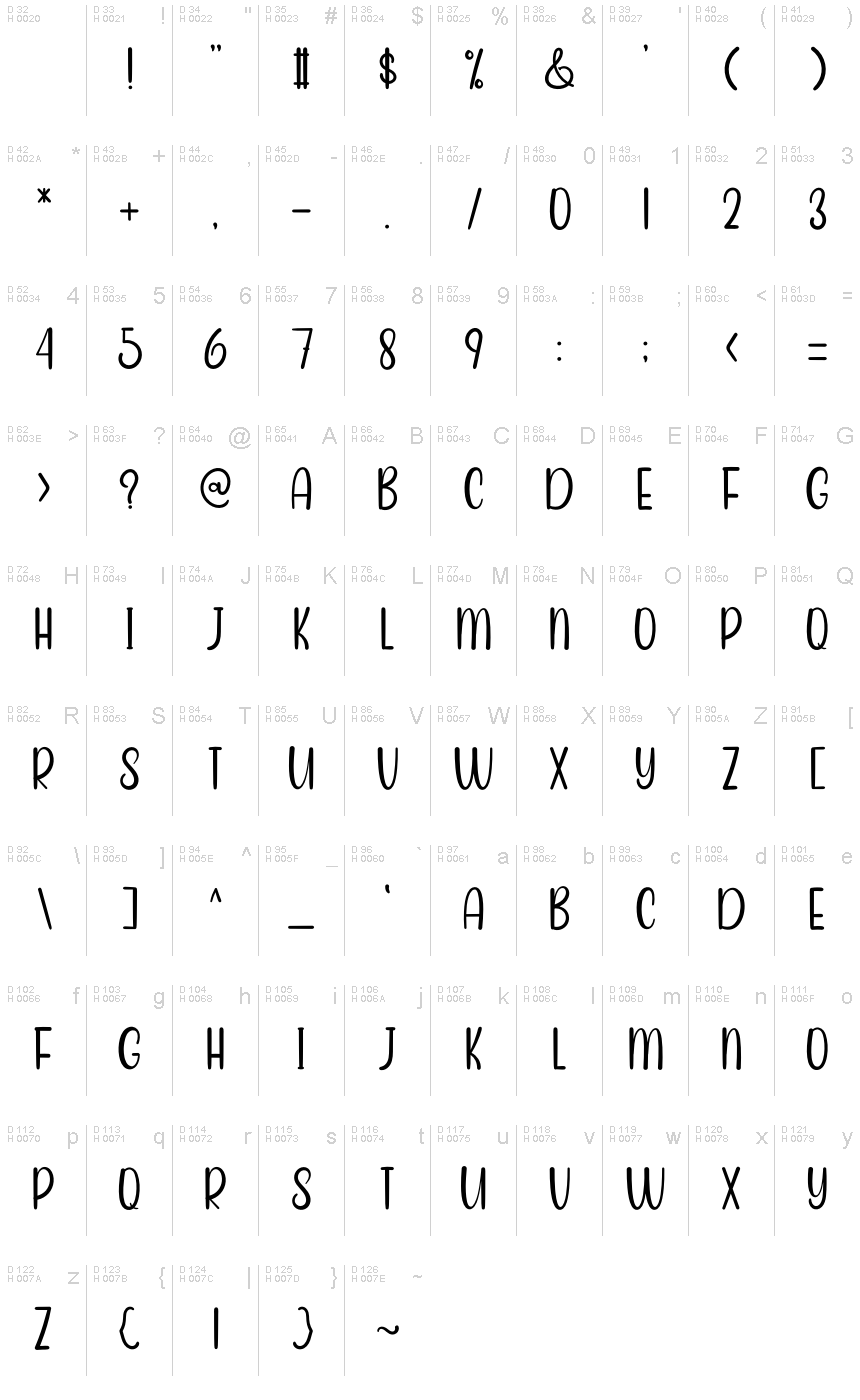
Happy Valentine Day
Happy Valentine Day by PiPi Creative brings a personal touch to your messages with its handwritten charm. The font exudes warmth and intimacy, as if each character were lovingly crafted by a gentle hand. Its condensed form enhances the coziness of the script, making it perfect for heartfelt greetings and romantic notes.
This delightful font lends itself beautifully to invitations, greeting cards, and personal stationery that aim to convey affection and tenderness. It's also well-suited for branding projects that require a dash of whimsy or an air of informal elegance. Whether you're penning a love letter or designing boutique packaging, Happy Valentine Day adds a sprinkle of emotional connection to every word.